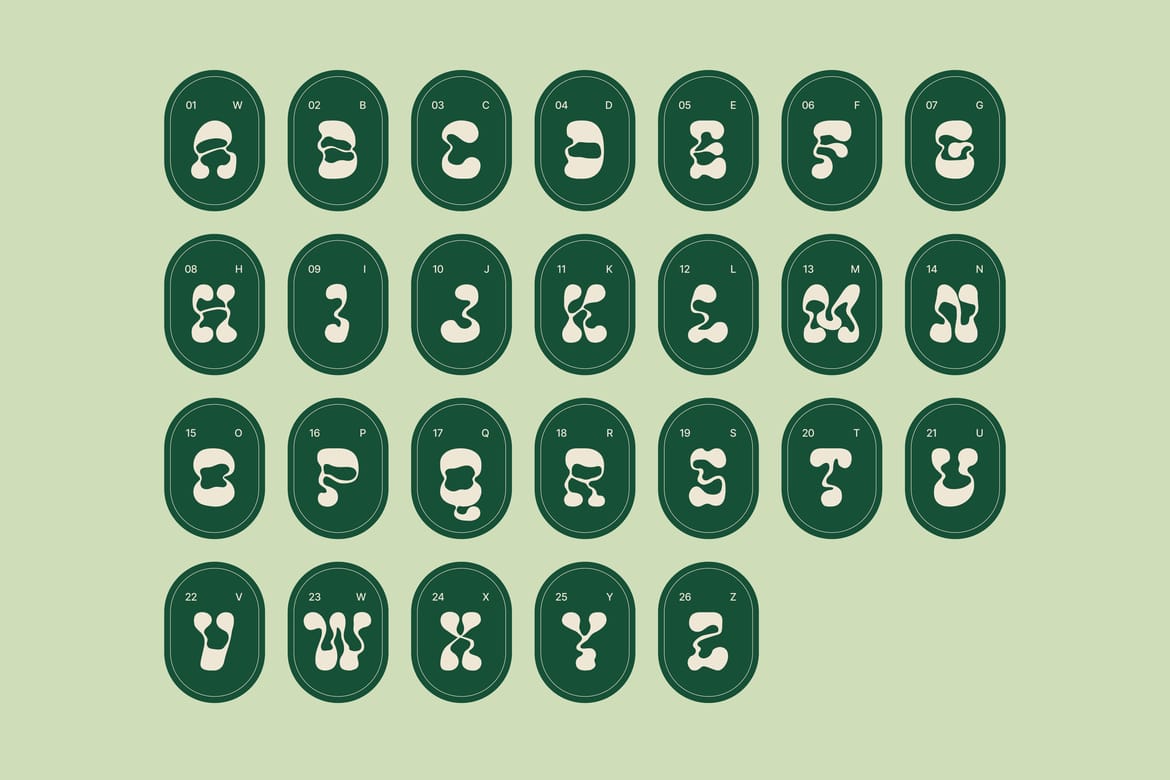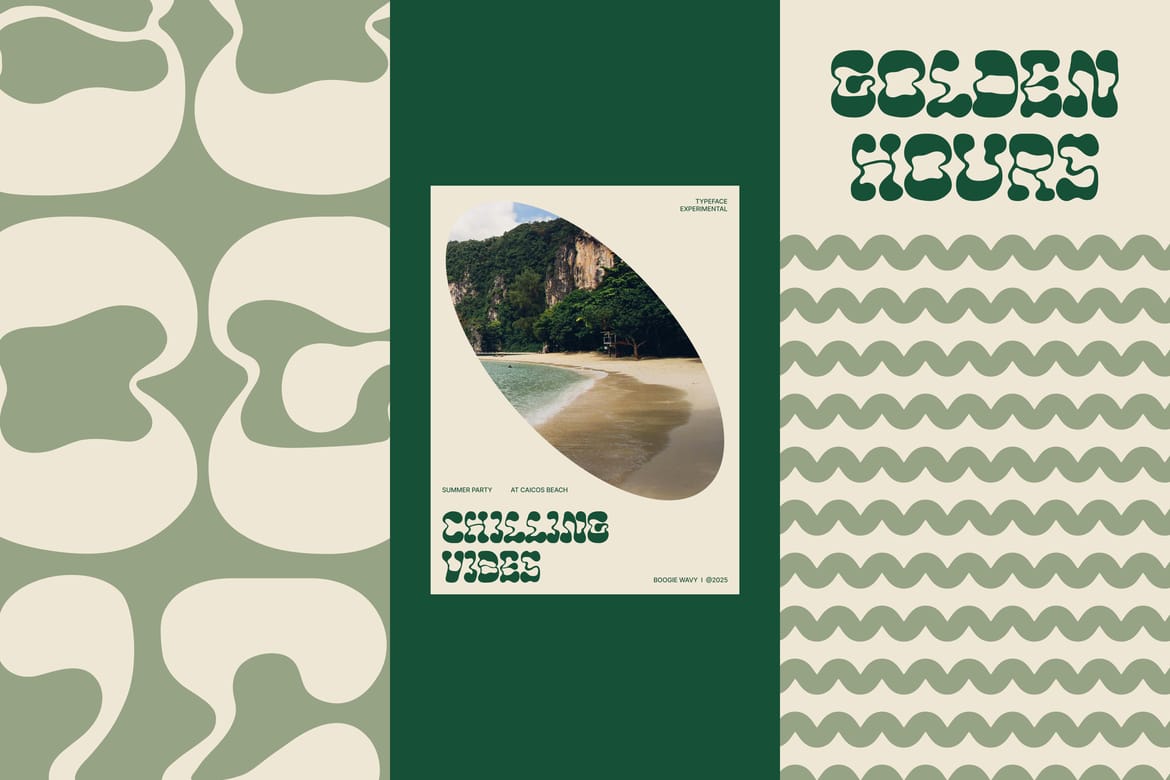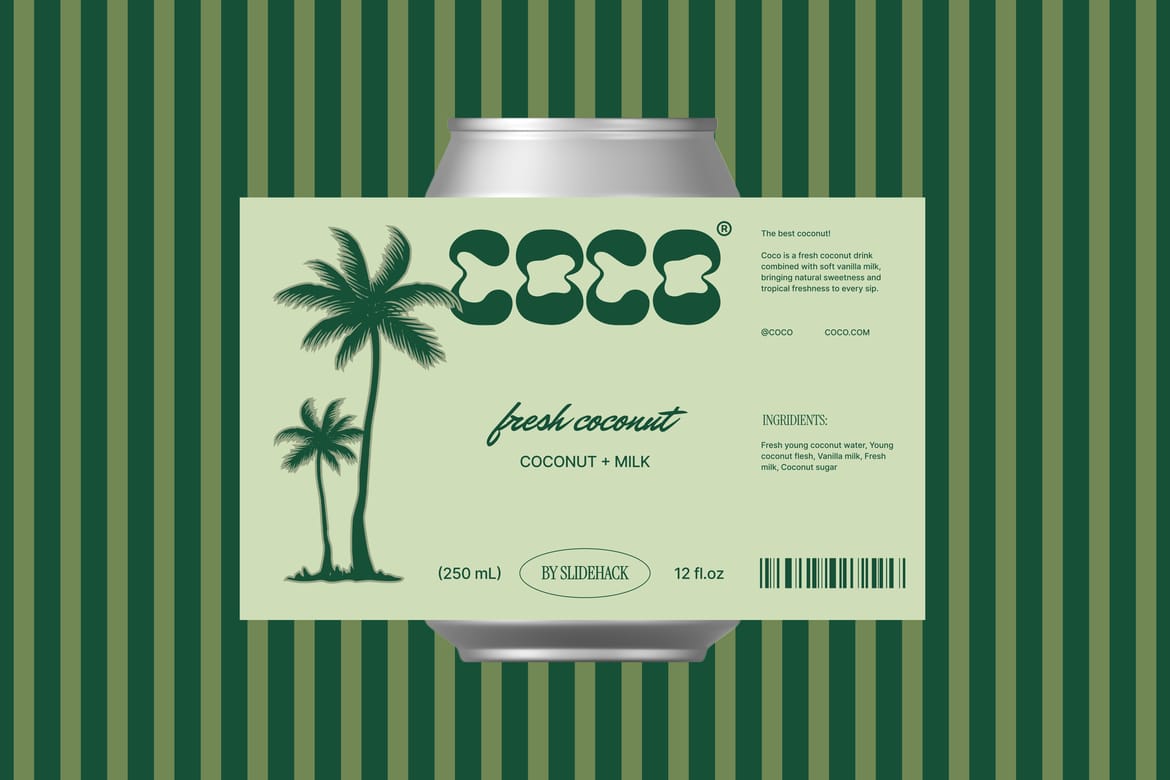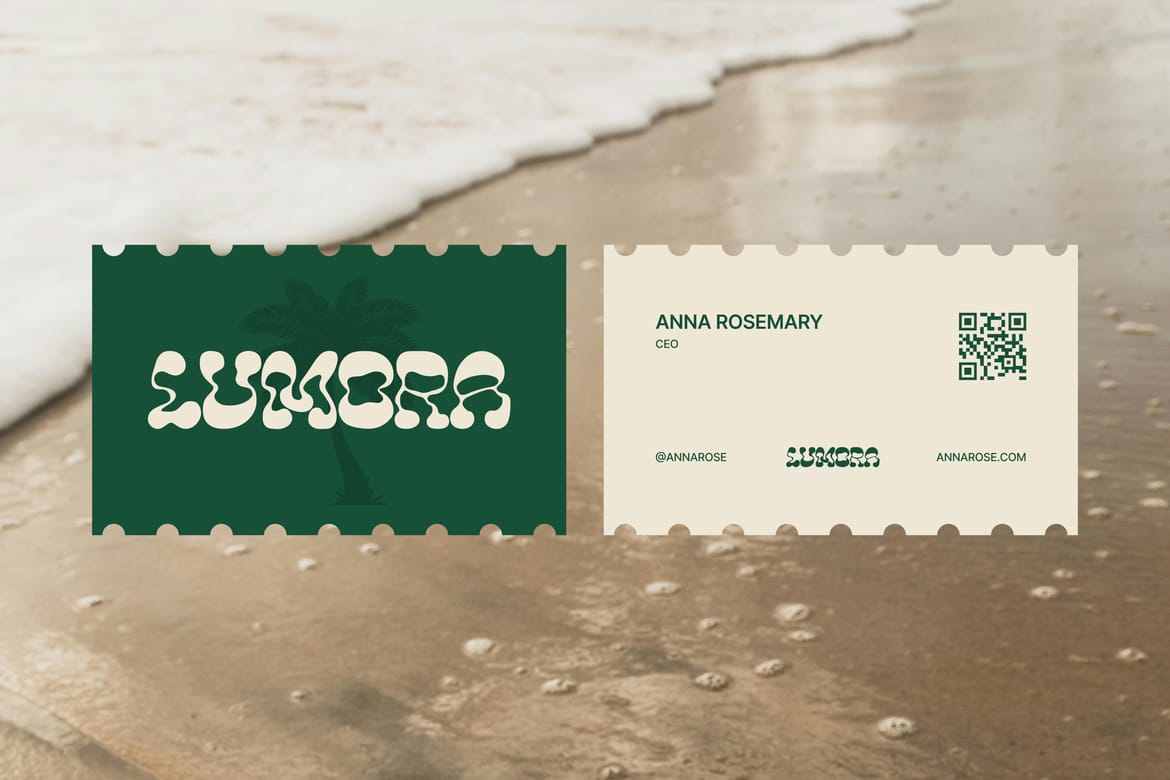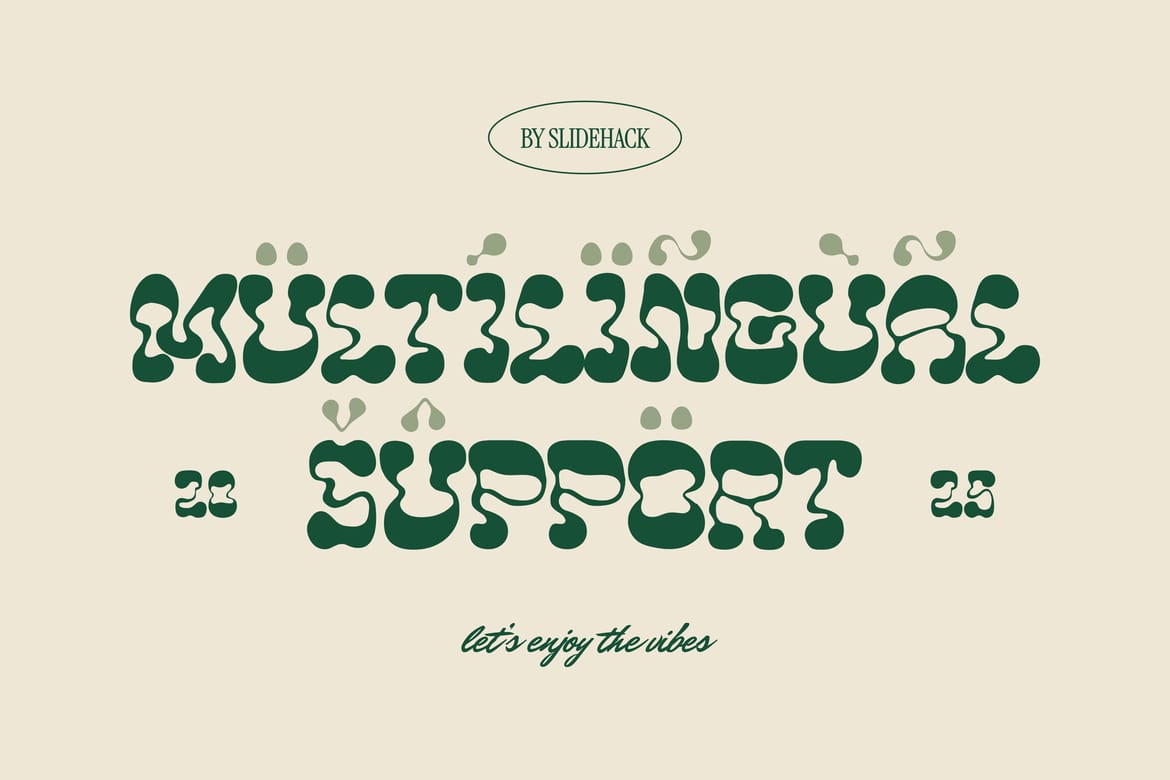
Boogie Wavy – Groovy Display Font adds a bold, funky, and retro-inspired style to your creative projects. Perfect for posters, branding, music covers, packaging, and social media graphics, this unique wavy font brings vibrant energy and eye-catching charm, making your designs stand out with a playful groovy vibe.
Groovy, fluid, psychedelic-inspired style
Perfect for music posters, vintage fashion, and creative lifestyle brands
Wavy letterforms with a bold retro attitude that instantly grabs attention